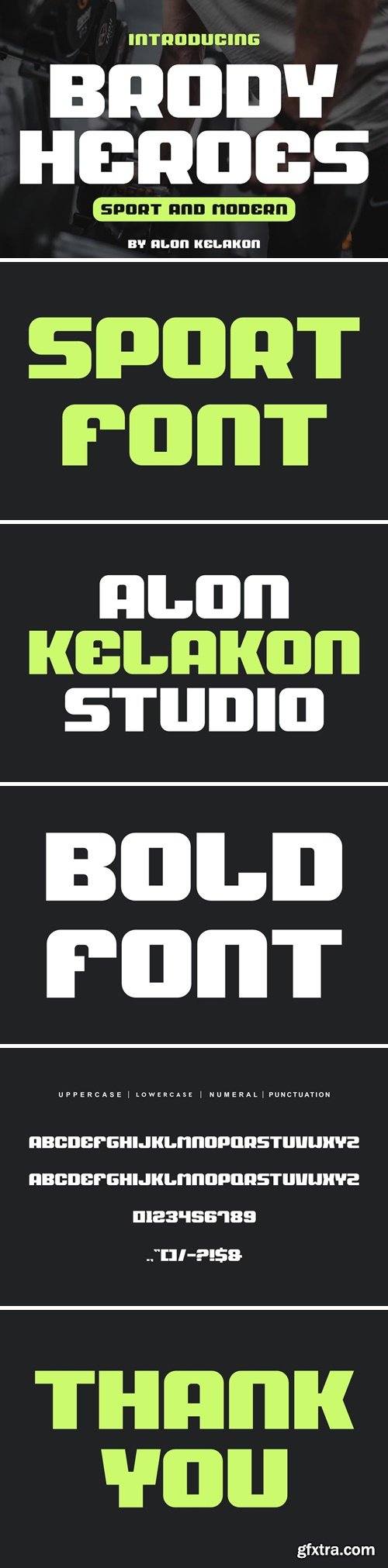
博多英雄字体
Brody Heroes Font is unique . Ready to use for your design like labeling, movie sceen, poster, movie title, gigs, album covers, logos, and much more.